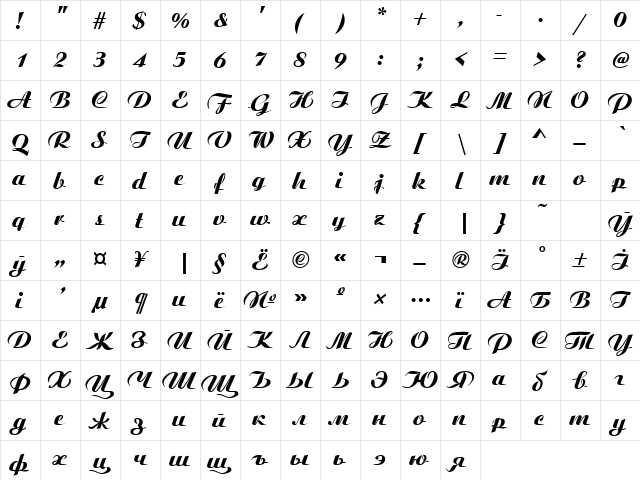
BitScript Regular
Design Context for BitScript Typeface
BitScript flows with the natural rhythm of handwritten lettering, making it ideal for designs that call for warmth and personal expression.
Font Pairing: Combine BitScript with a simple geometric sans for maximum contrast — the tension between flowing curves and clean structure is a classic typographic pairing.
Pro Tip: Pair BitScript with a clean sans-serif for supporting text. The contrast between fluid script and geometric structure creates an elegant typographic hierarchy.